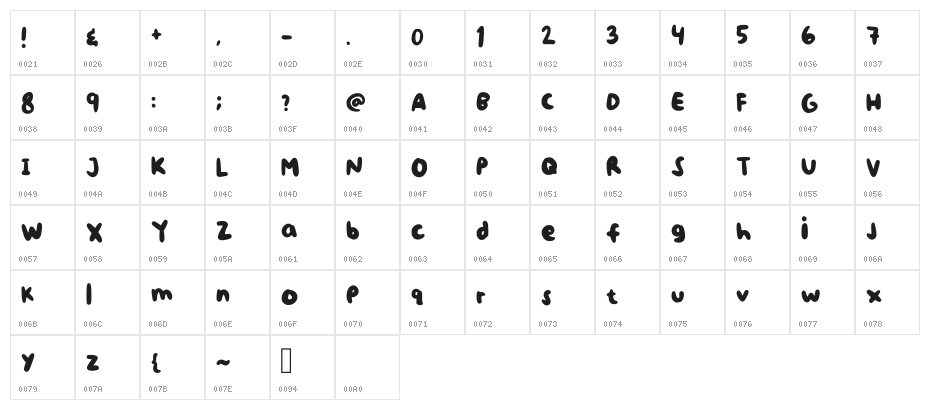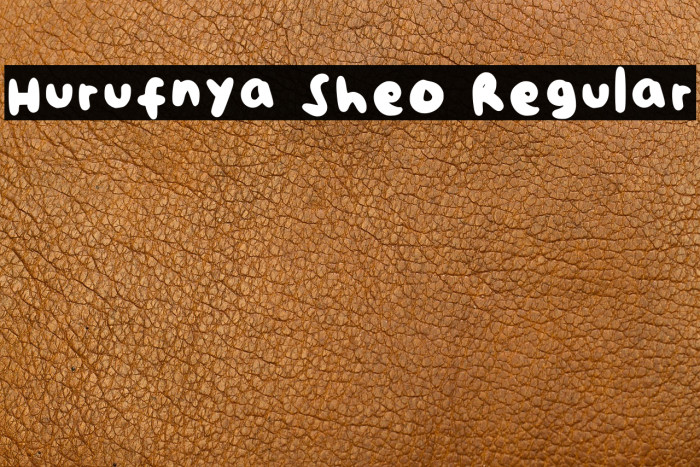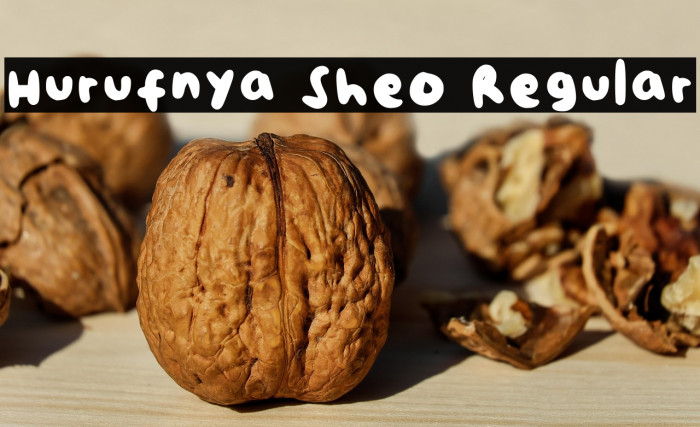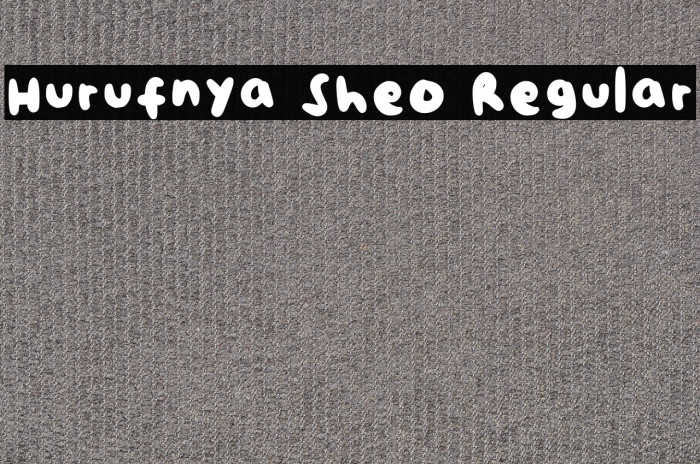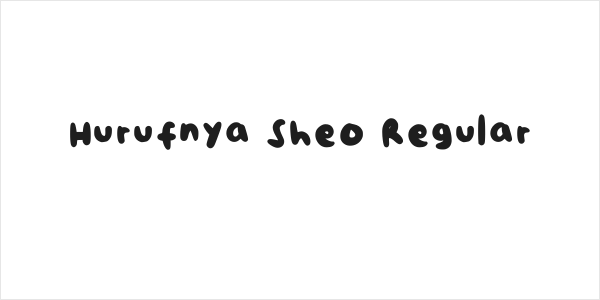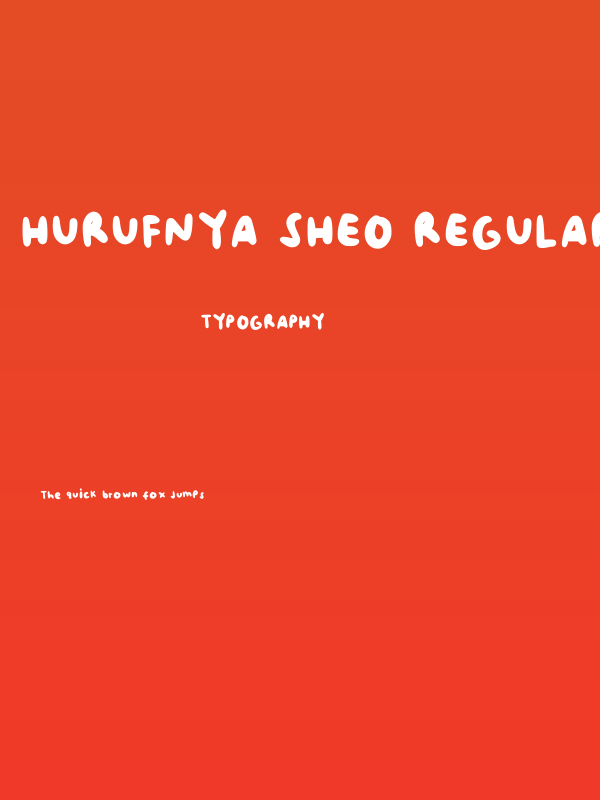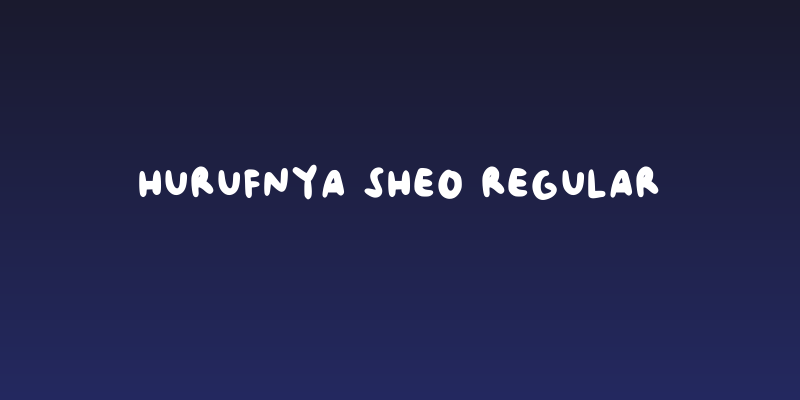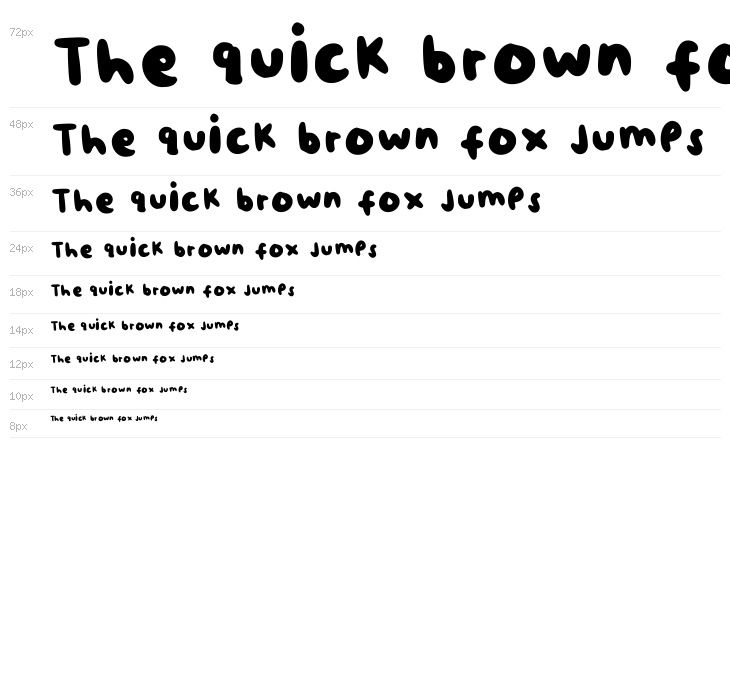
Hurufnya Sheo Regular Font
Hurufnya Sheo Regular Description
This playful and bold font features rounded, thick strokes that give it a friendly and approachable appearance. The characters are slightly irregular, adding a hand-drawn feel that enhances its charm. The uppercase and lowercase letters maintain a consistent style, with a slight slant that suggests movement and energy. The numbers and special characters are equally bold and rounded, ensuring uniformity across all glyphs. This font's casual and informal style makes it ideal for projects that require a personal touch.
| Proposed Projects | Ideal for children's books, playful branding, casual invitations, and social media graphics. |